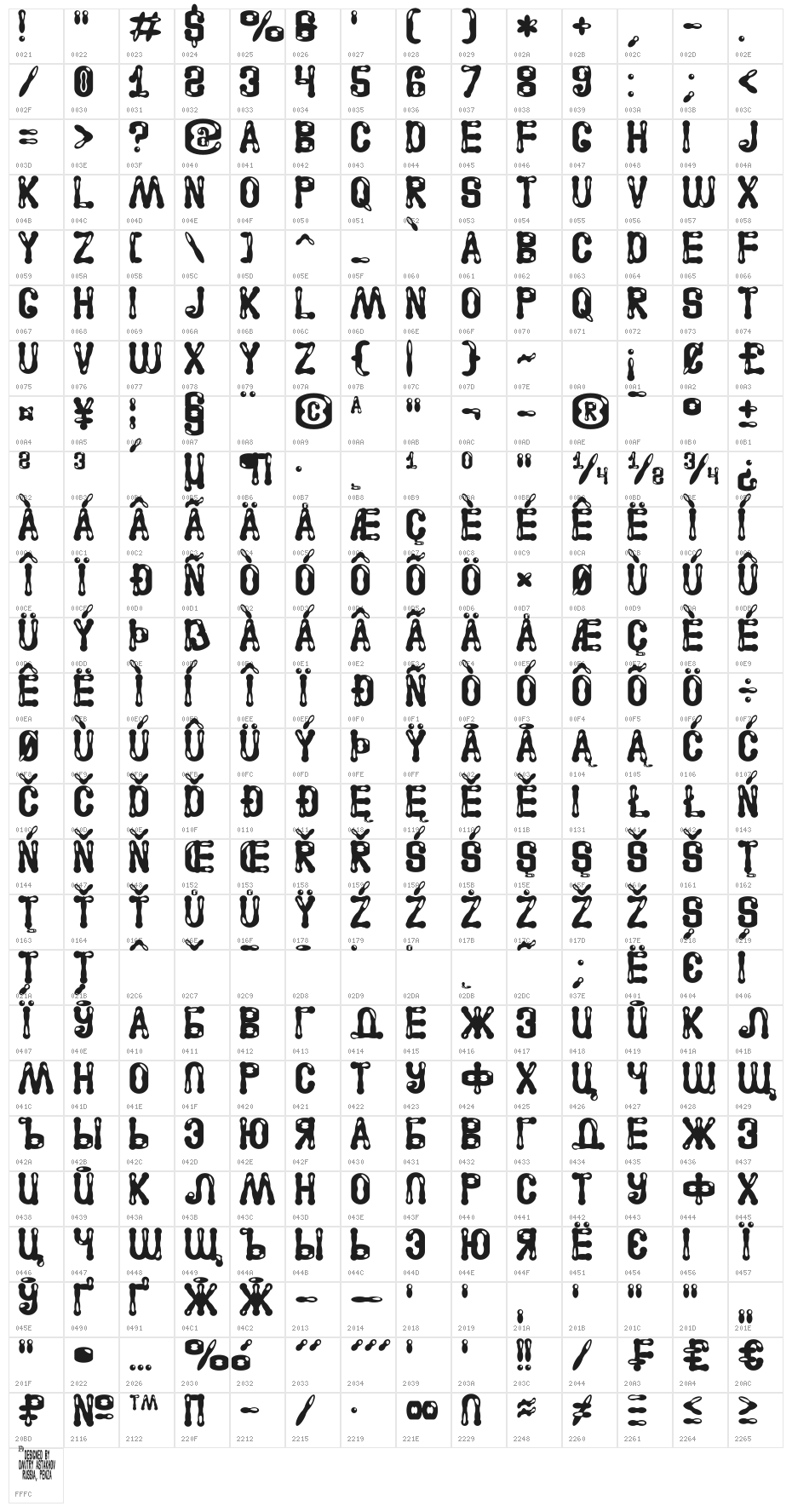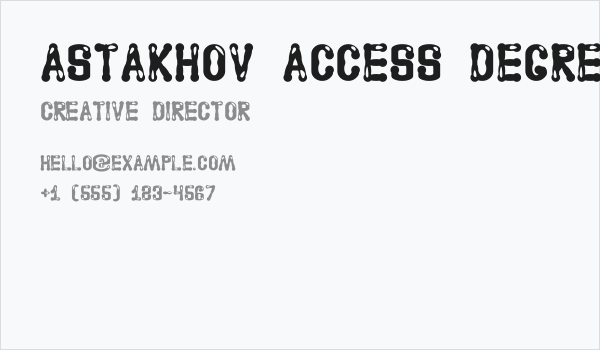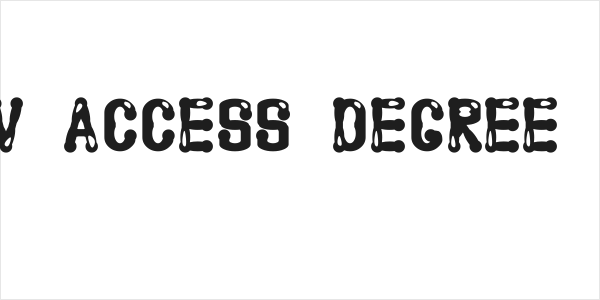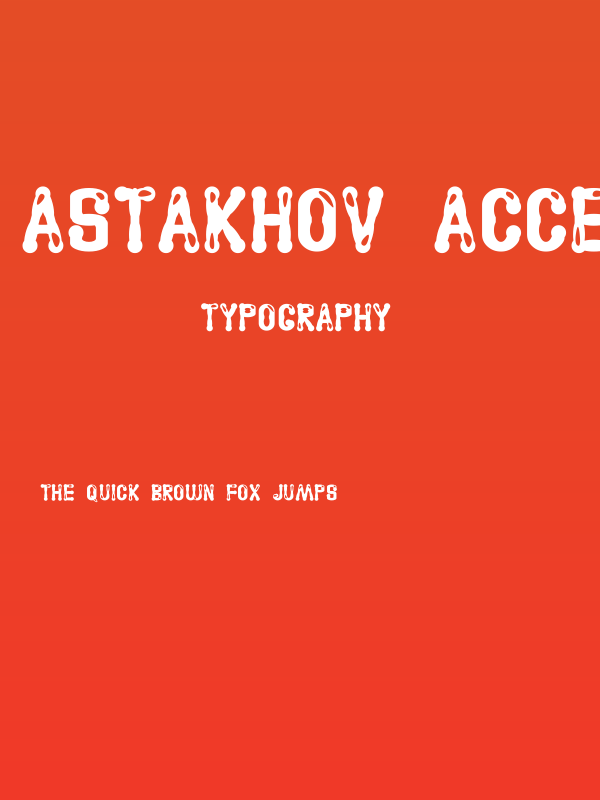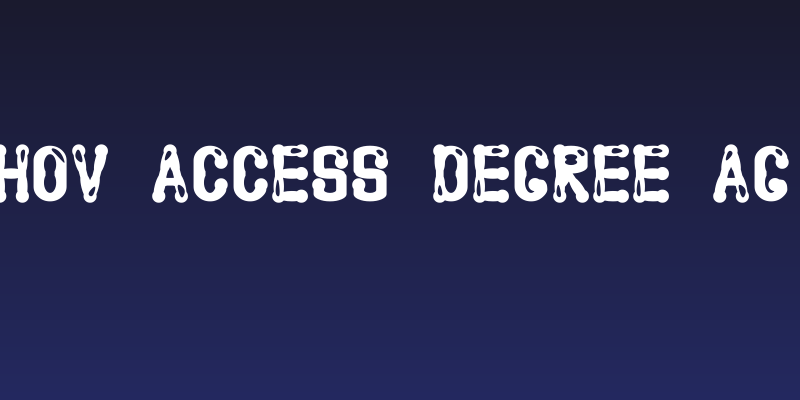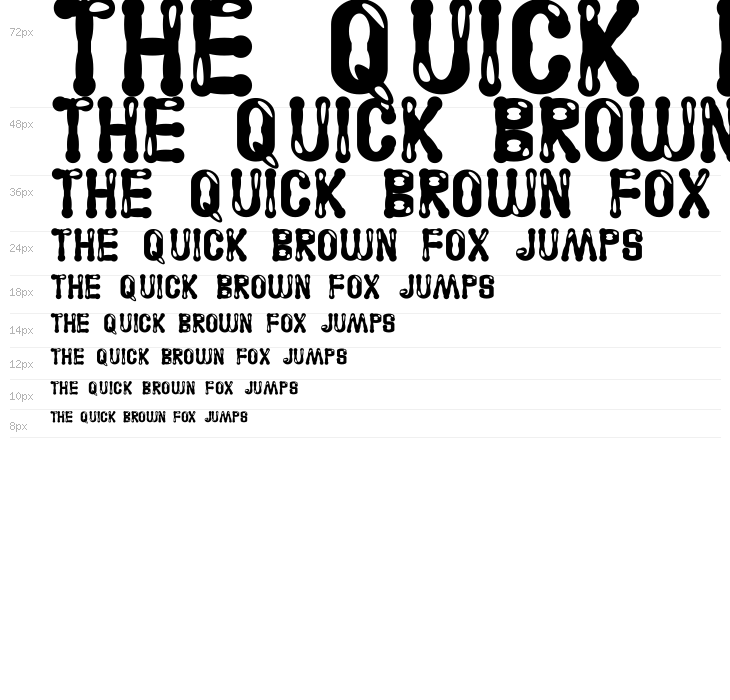
Astakhov Access Degree AG Serif Font
Astakhov Access Degree AG Serif Description
This font features a bold and playful design with a unique, organic appearance. The characters are characterized by irregular, blob-like shapes that give them a dynamic and fluid look. The uppercase and lowercase letters maintain a consistent style, with rounded edges and varying thicknesses that create a sense of movement. The numerals and special characters follow the same design principles, ensuring a cohesive appearance across all glyphs. This font's distinct style makes it stand out, offering a creative and artistic vibe that is both eye-catching and memorable.
| Proposed Projects | Ideal for creative projects such as posters, album covers, children's books, and branding for playful or artistic brands. |